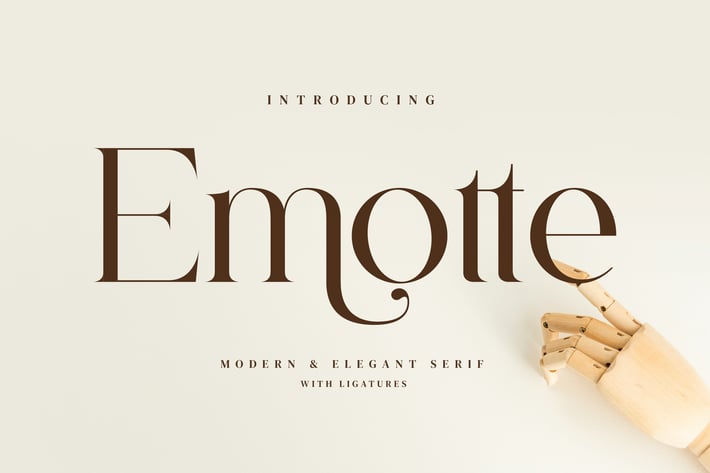
Emotte Elegant Serif Font
Emotte Stylish Ligature Typeface, inspired by the famous minimalist logo perfect for the purposes of designing templates, brochures, videos, advertising branding, logos and more.